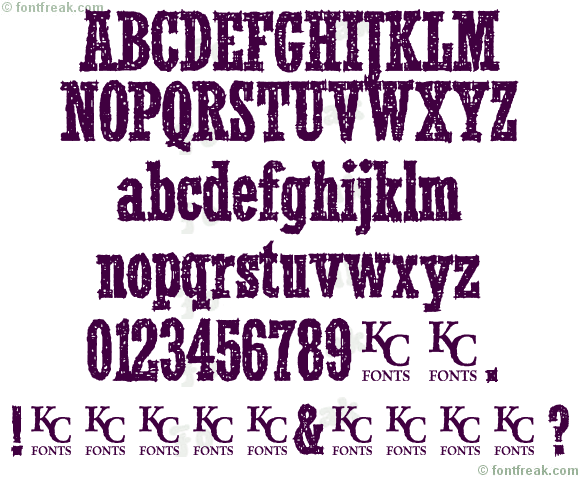
SmokeInTheWoods
About SmokeInTheWoods
SmokeInTheWoods is a distinctive display font designed by Kevin Christopher, offering a unique blend of rustic charm and artistic flair. This freeware font features a bold, slightly distressed style that evokes a sense of nature and adventure, making it an ideal choice for various creative projects. The letterforms exhibit a sturdy stroke weight with minimal contrast, enhancing their legibility while contributing to the font's rugged aesthetic. The spacing is well-balanced, allowing for easy reading even at larger sizes, and decorative elements are incorporated into the design, adding character and a hand-crafted feel.
This font is particularly well-suited for a range of applications. Its striking appearance makes it perfect for movie posters, where a bold statement is needed to attract attention. Additionally, SmokeInTheWoods is an excellent choice for restaurant menus, giving an earthy, organic vibe that aligns well with farm-to-table dining experiences. Wedding invitations can also benefit from its unique style, providing a touch of whimsy and charm that captures the essence of a special day. Furthermore, graphic designers and content creators can use this font in branding projects, where a memorable and distinctive look is essential.
Targeted at graphic designers, small business owners, and content creators, SmokeInTheWoods offers versatility and a unique personality that can elevate any design. Its free availability makes it accessible to anyone looking to enhance their creative work without the constraints of licensing fees.
In conclusion, the SmokeInTheWoods font free download provides an opportunity to incorporate a standout typeface into various projects. Its bold, rustic charm not only captures the essence of nature but also invites creativity, making it a valuable addition to any designer's toolkit.